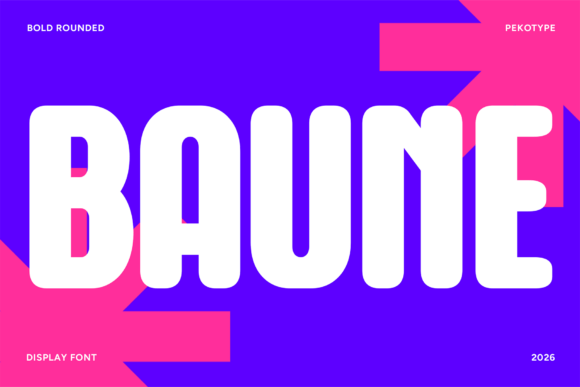
The Perfect Font for Making a Statement
Have you ever stared at a blank page, trying to find the perfect font to bring your design to life? The frustration is real, but what if I told you that there’s a font that can instantly capture attention, convey personality, and leave a lasting impression? Introducing Baune Font, a bold, rounded sans-serif display font that’s designed to make a statement without losing its friendly, approachable vibe.
Baune Font is more than just a typeface – it’s a powerful tool for designers who want to create bold, youthful, and confident designs. Whether you’re working on a branding project, creating a social media campaign, or developing a packaging design, Baune Font is the perfect choice. Its unique blend of modern and playful elements makes it a valuable asset for any designer looking to add a touch of personality to their work.
Baune Font Key Features
- Font Family: Baune is a sans-serif font family, offering a clean and modern look.
- Language Support: Supports over 200 languages, including Latin, Cyrillic, and Greek scripts.
- Unique Characteristics: Baune features a distinctive geometric shape and a subtle rounded edge, making it highly legible and visually appealing.
Baune Font Review
When I first laid eyes on the Baune font, I was immediately drawn to its unique aesthetic. The ✨ bold and modern design works well for titles, headings, and other emphasis areas in any project. The font’s ability to convey a sense of luxury and sophistication makes it an excellent choice for high-end branding and design projects.
- ✨ Beautifully designed with a modern twist
- ✨ Perfect for luxury and high-end branding
- ✨ Works well for titles and headings
However, I did notice a few limitations with the Baune font. The ⚠️ relatively limited character set may cause issues for projects that require a wide range of characters. Additionally, the font may not be the best choice for body text, as it can be quite ⚠️ difficult to read in smaller sizes.
Overall, I would say that the Baune font is a solid choice for designers who need a modern and luxurious font for their projects. While it may not be the best choice for every situation, its unique design and versatility make it a valuable addition to any designer’s toolkit.
Tips for Getting the Most Out of Baune Font
Use Baune Font for headings and titles to add a touch of elegance and sophistication to your designs.
Experiment with different font sizes and colors to create visual interest and balance.
Combine Baune Font with other fonts and design elements to create a unique and eye-catching look.
Baune Font is ideal for:
Corporate branding and marketing materials
Graphic design and visual identity projects
Q: Are there any font sizes or resolutions that are not recommended for the Baune Font?
While the Baune Font can be used at a wide range of sizes and resolutions, it’s recommended to avoid using it at very small sizes (less than 8 points) or very high resolutions (above 300 DPI). At these extremes, the font may become difficult to read or may produce unwanted artifacts. In general, it’s best to use the Baune Font at sizes between 10 and 24 points and resolutions between 72 and 300 DPI.